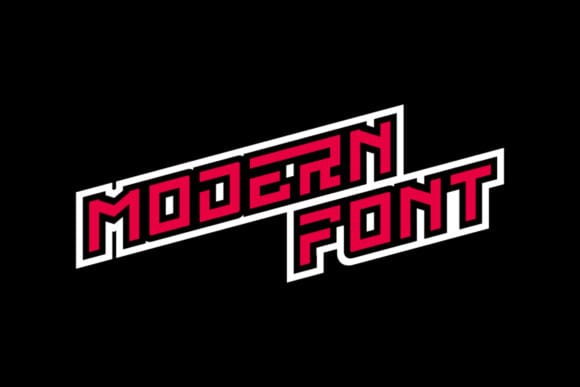
Nocturne Kraft Font
Nocturne Kraft Font is a bold and thick lettered display font. It is suitable for any branding project such as logos, t-shirt printings, sports, and many more. It will look outstanding in a wide range of contexts.